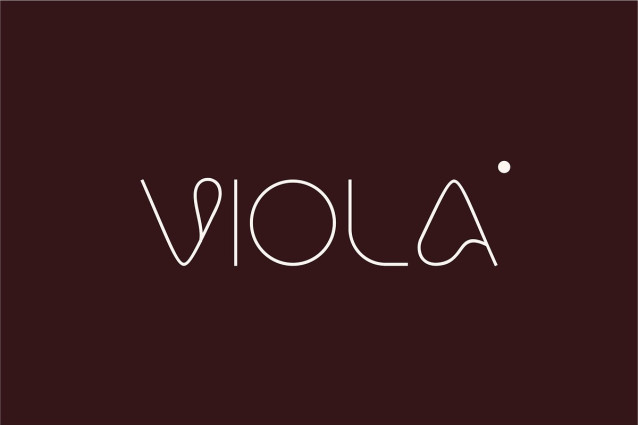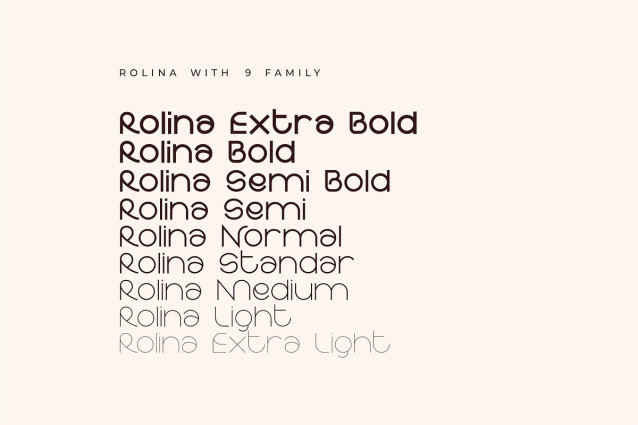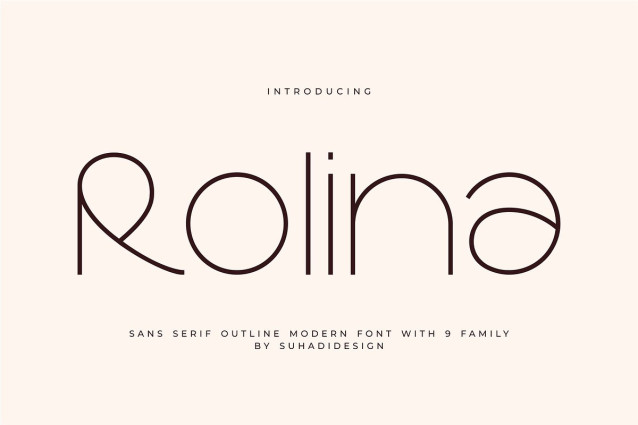
Rolina Font
Rolina Font is a minimalist and stylish sans serif font. With its clean and contemporary design, this font has become a favorite in the market. We have maintained this font’s elegant, classy, ​​and stylish look. Rolina is the perfect choice for cosmetics, beauty, brands, logos, wordmarks, magazines, designs, books, publications, branding, brand names, business cards, social media, classy designs, newspapers, branding, beauty, and other projects. Rolina is here to elevate the quality of your designs.